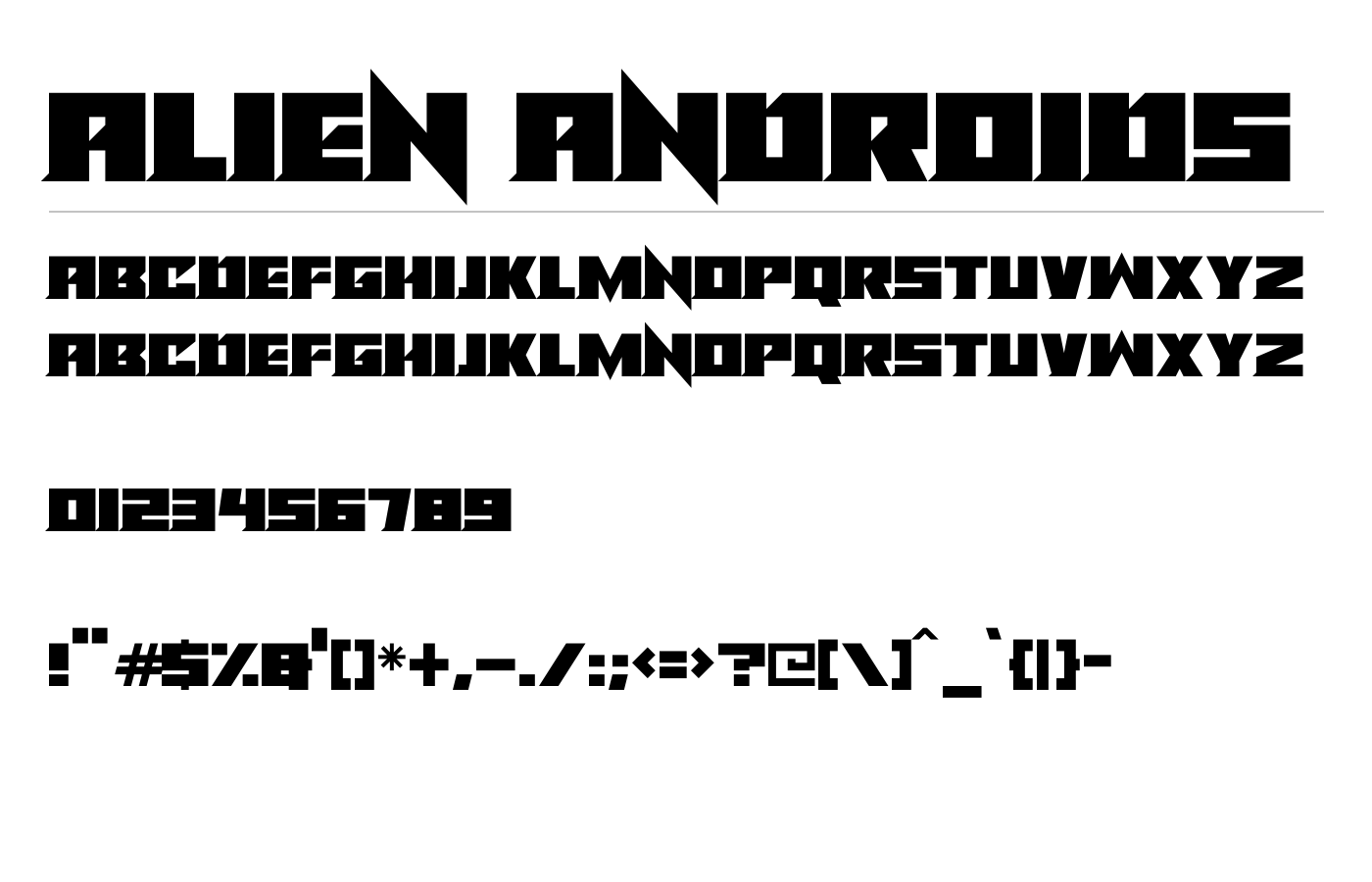
Alien Androids is a bold, all-caps display font with a futuristic and geometric design, characterized by sharp angles and thick, blocky strokes. Its strong, edgy appearance gives off a sci-fi vibe, making it perfect for technology, gaming, or space-themed branding and headlines. This font works best for eye-catching logos, posters, and digital media where a modern, adventurous personality is desired.
Alien Androids Font
About Alien Androids Font